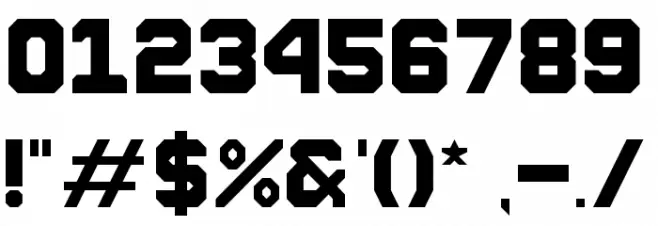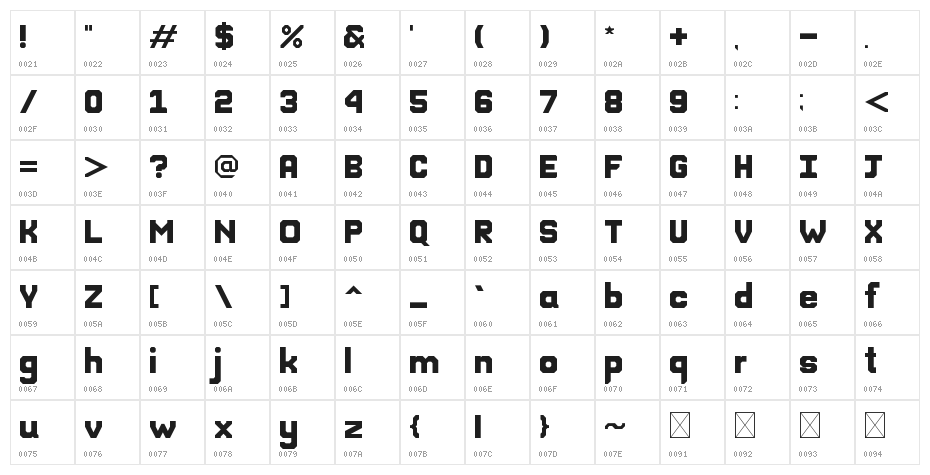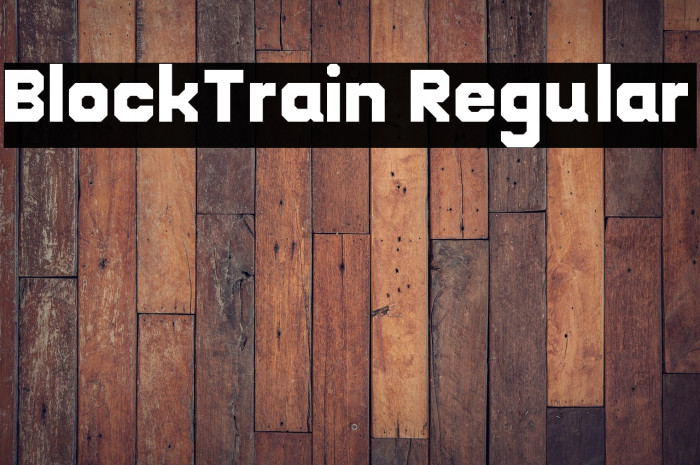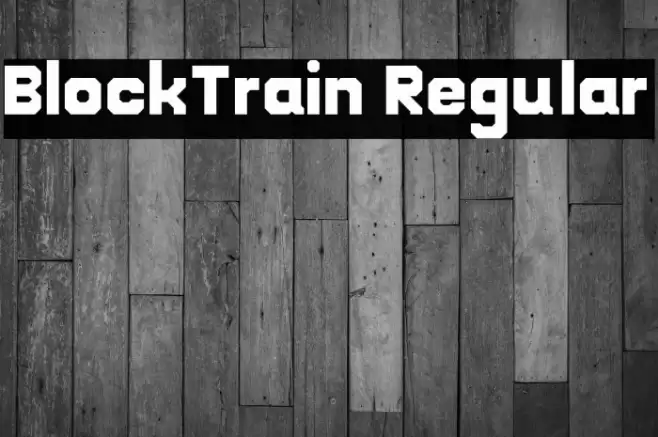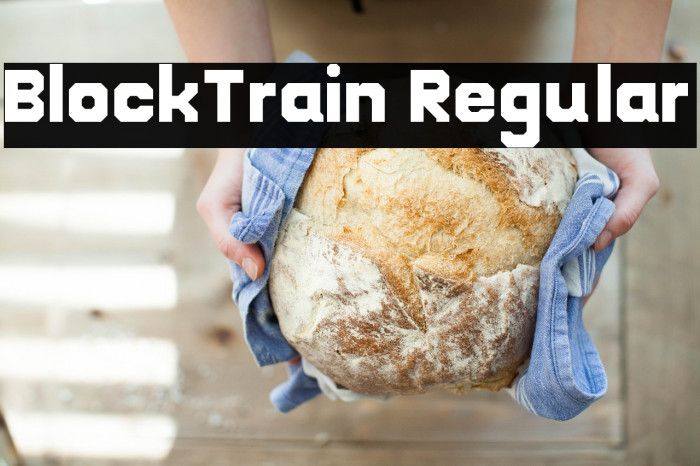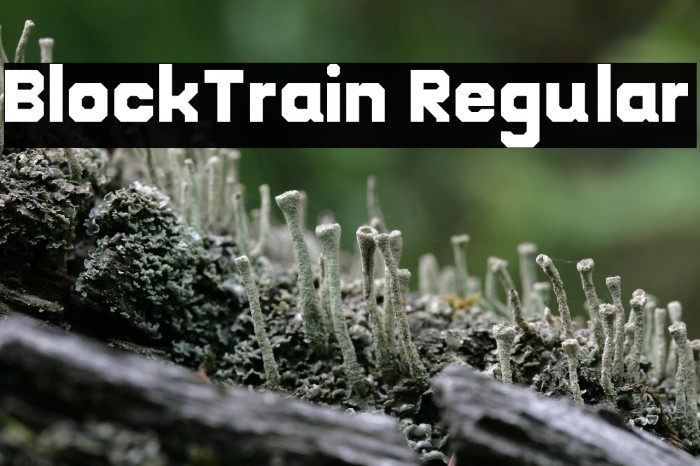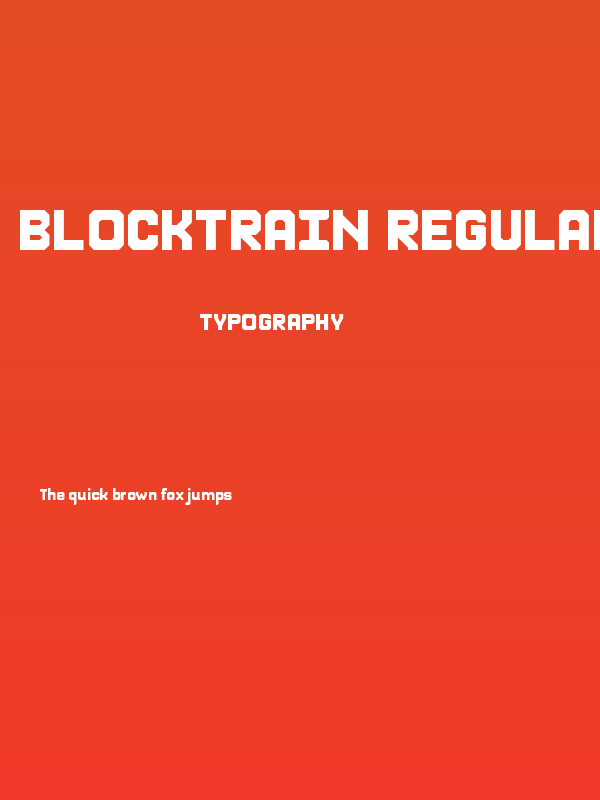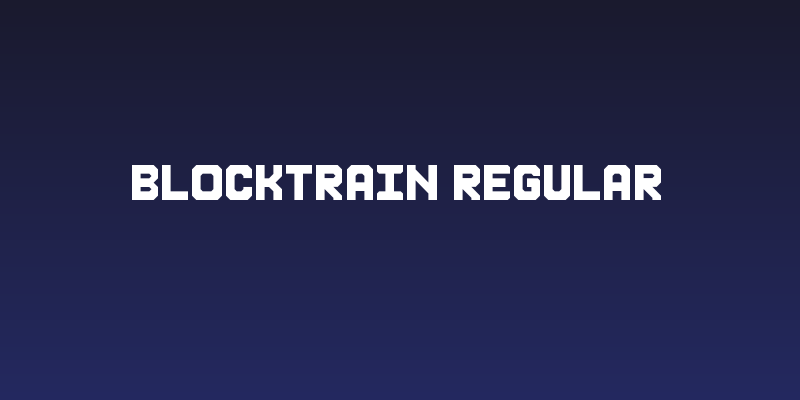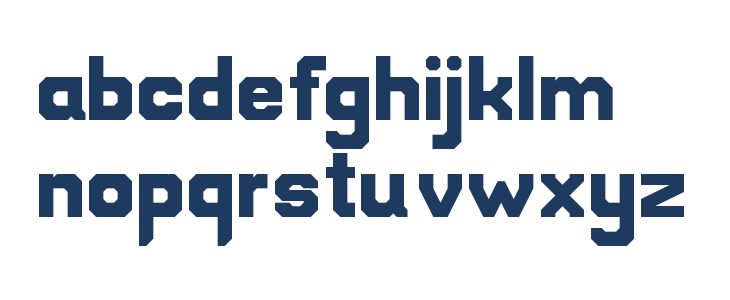
BlockTrain Regular Font
BlockTrain Regular Description
This font features a bold and robust design with a geometric and blocky appearance. The characters are uniformly thick, giving it a strong and impactful presence. The uppercase and lowercase letters maintain a consistent style, with sharp angles and straight lines that convey a sense of stability and strength. The numerals and special characters follow the same design principles, ensuring a cohesive look across all glyphs. This font is ideal for projects that require a bold statement, such as posters, headlines, or branding materials.
| Proposed Projects | Ideal for posters, headlines, branding, and any project needing a strong visual impact. |